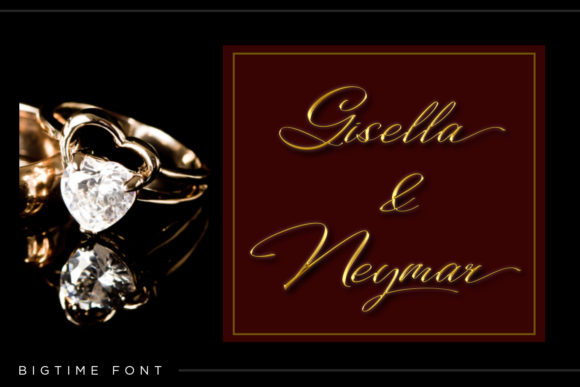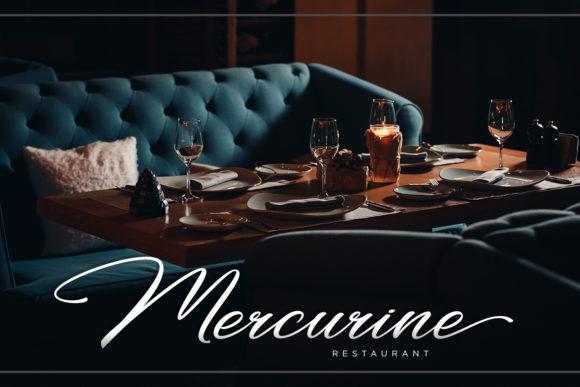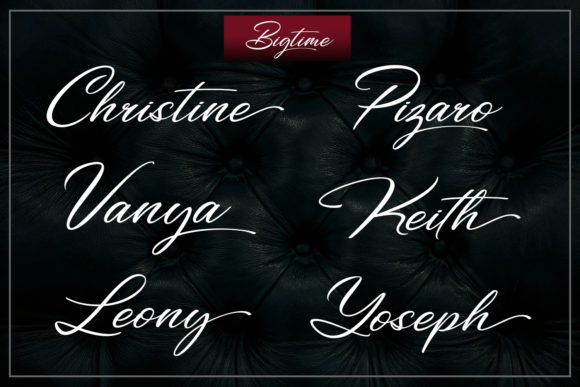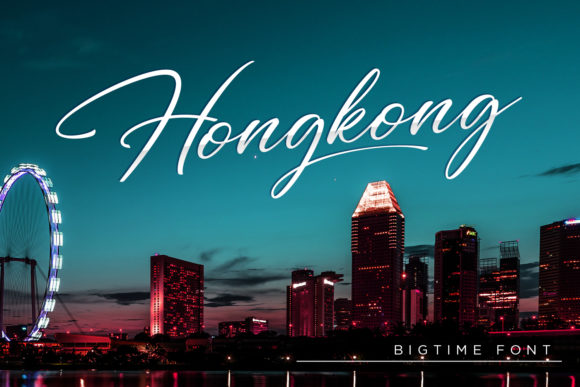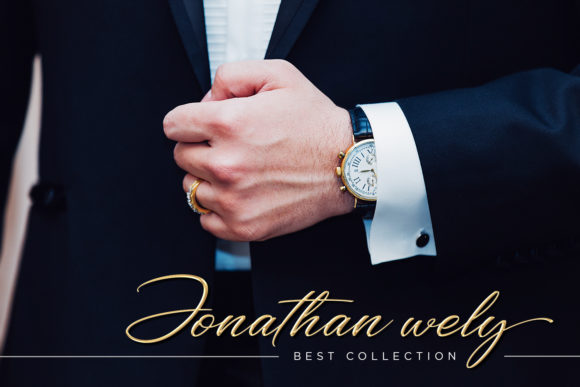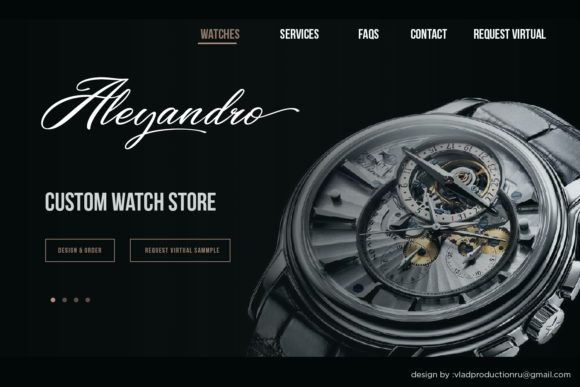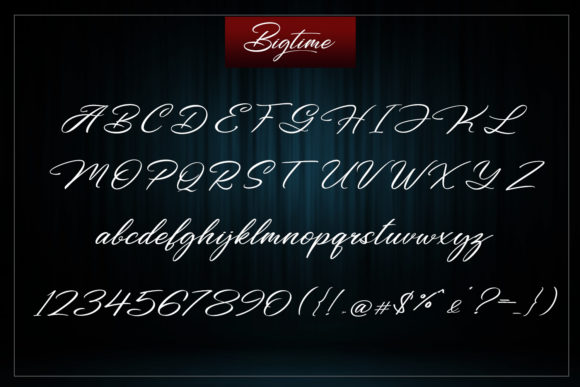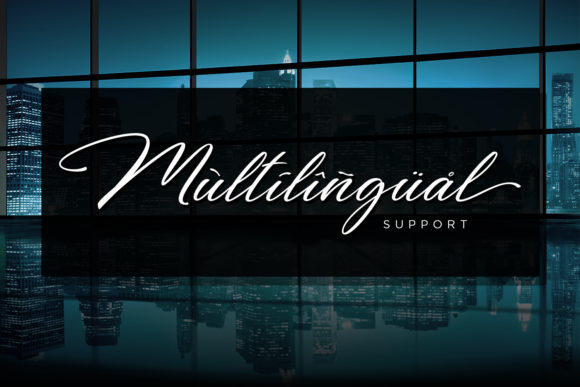
Bigtime Script Font
About Bigtime Script Font
The Bigtime is a powerful signature script. It has a natural and modern style and will add a luxurious feel to your designs.